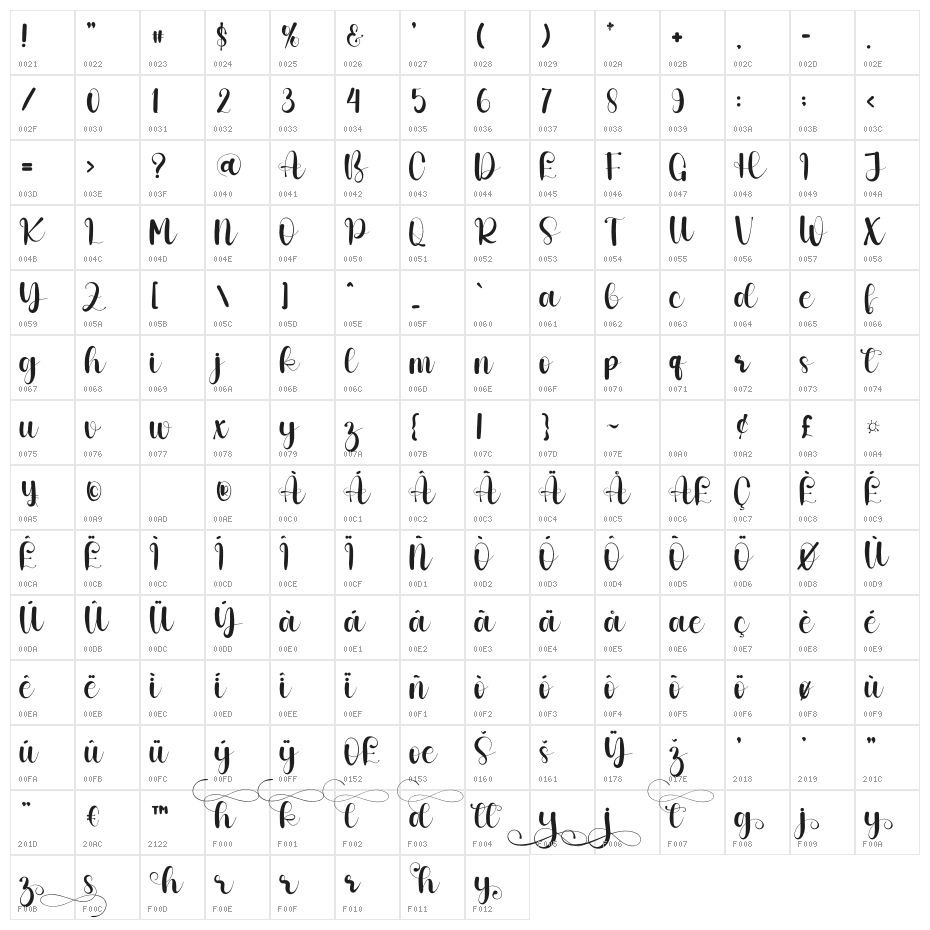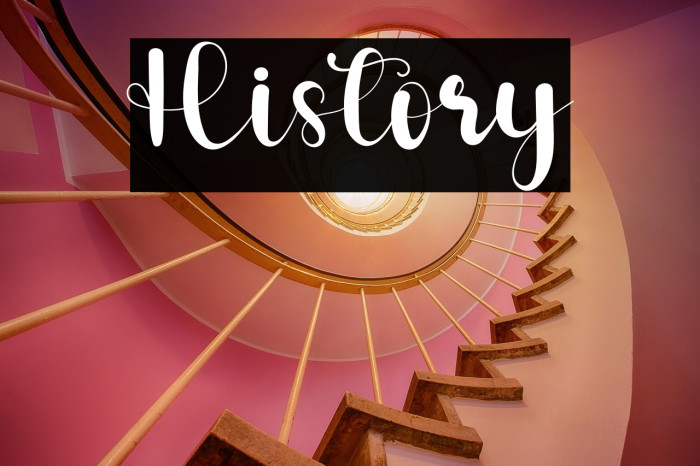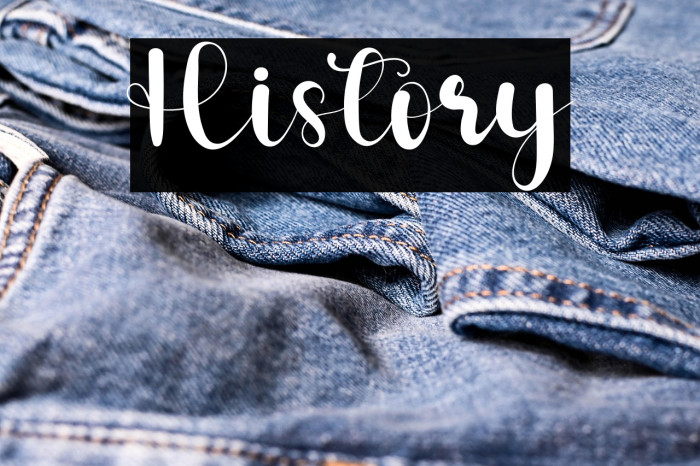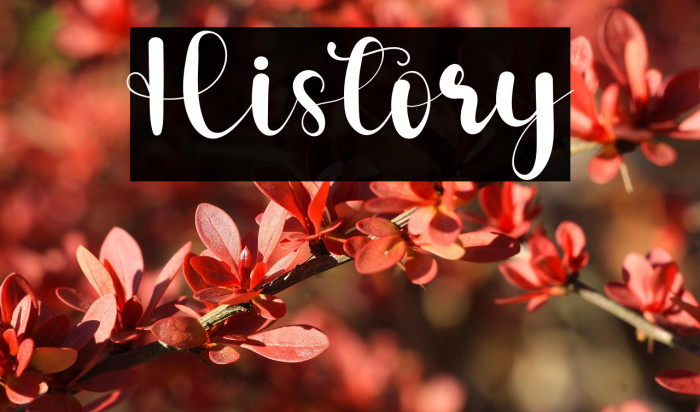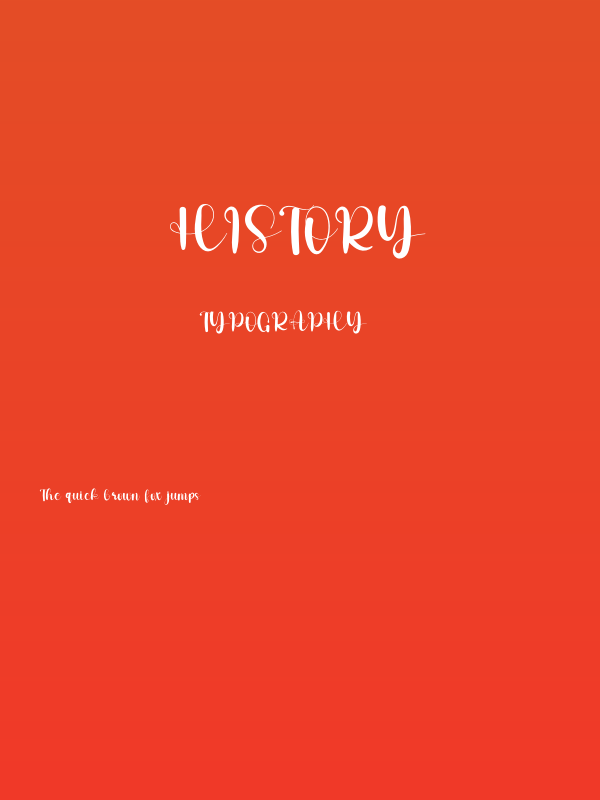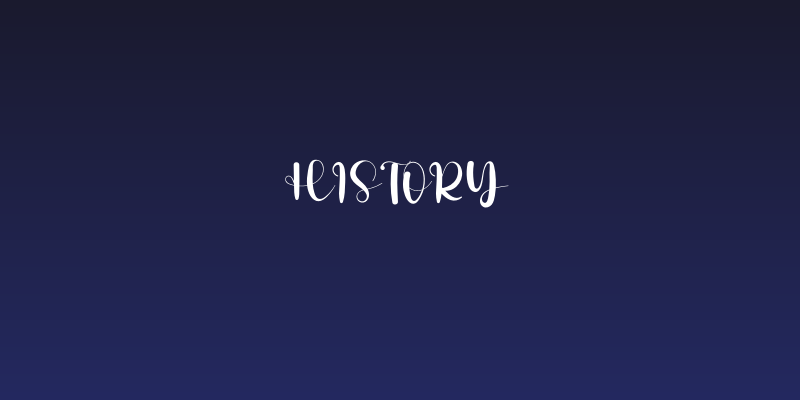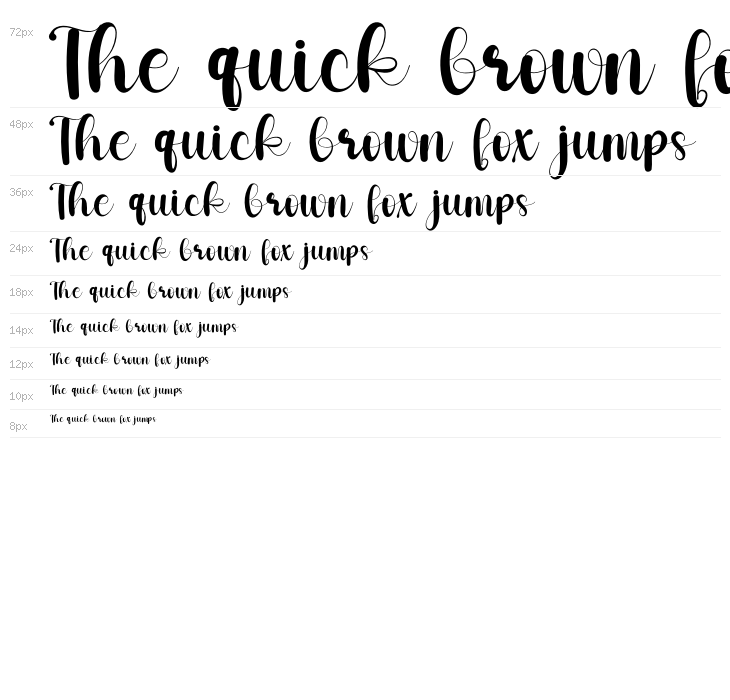
History Font
History Description
This font features an elegant and flowing script style, characterized by its graceful curves and loops. The uppercase letters are bold and decorative, with intricate swirls that add a touch of sophistication. The lowercase letters maintain a consistent fluidity, creating a harmonious balance with the uppercase. Numbers are bold and slightly playful, complementing the overall aesthetic. Special characters are designed with the same attention to detail, ensuring they blend seamlessly with the rest of the font. This font exudes a sense of elegance and charm, making it ideal for projects that require a touch of class and creativity.